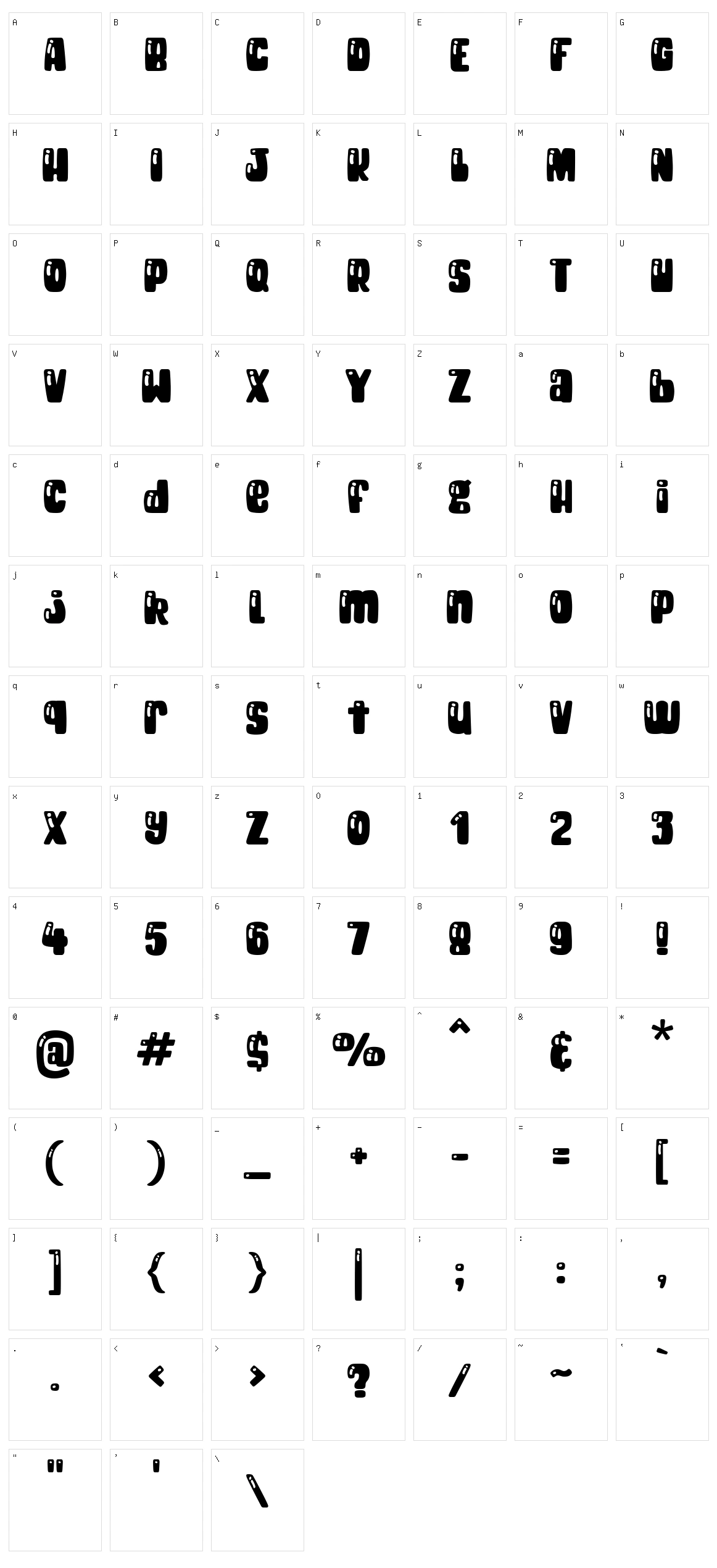
The free font Cheeky Bite Shine is carefully designed by Amber Nest, showcasing a thoughtful balance of creativity and usability and falls under the Cartoon font style. When you download the ZIP file, it contains only 87.4 KB of font files, making it lightweight and quick to download. Please review the license details below to understand permitted usage and distribution rights. If license information is not available, we recommend using this font for personal projects only or contacting the author directly for commercial usage permissions.